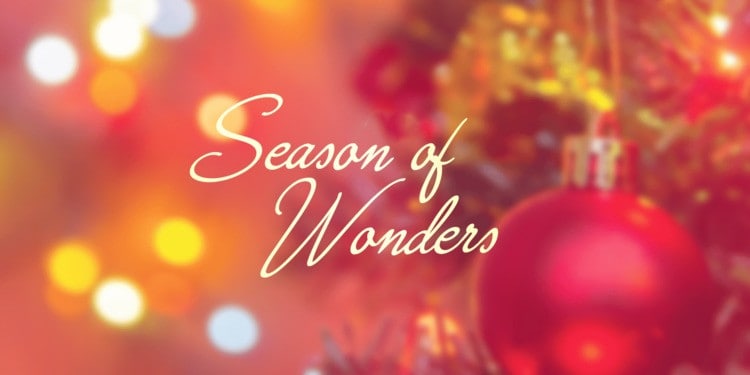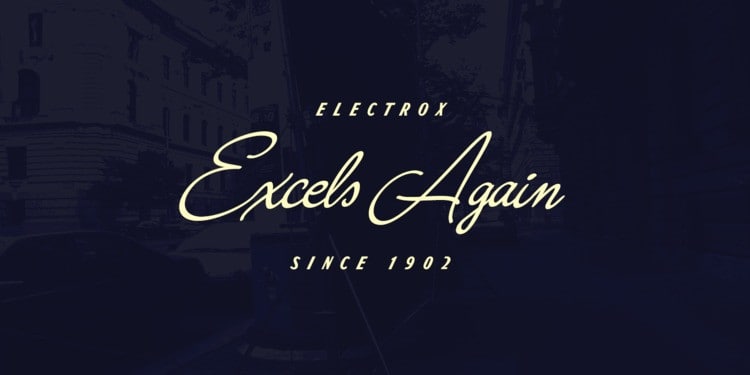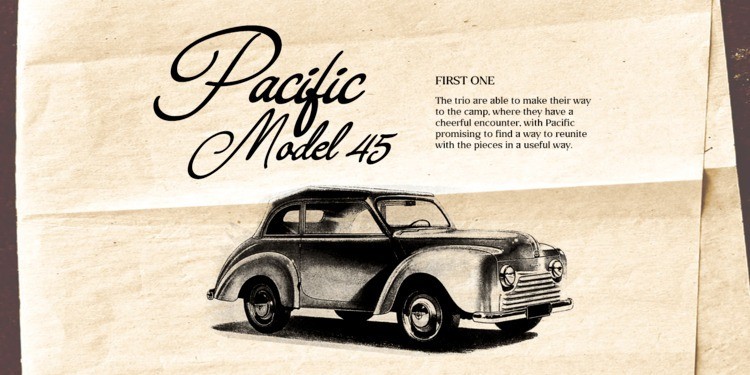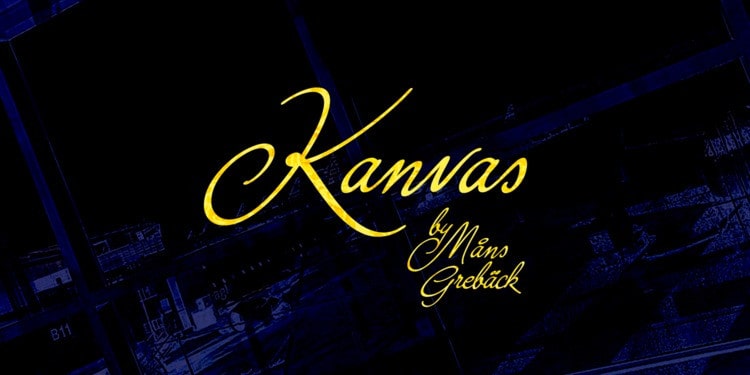
Kanvas Calligraphy Font is a delicate, elegant and flowing handwritten font. It has beautiful and well balanced characters and as a result, it matches a wide pool of designs. Made from font designer named Måns Grebäck. This font is a typeface family consisting of five weights: Thin, Light, Regular, Bold and Black. Use it for an invitation card, in a celebratory context or as a logotype. The font contains all characters you’ll ever need, including all punctuation and numbers. It has an extensive lingual support, covering all European Latin-based scripts.